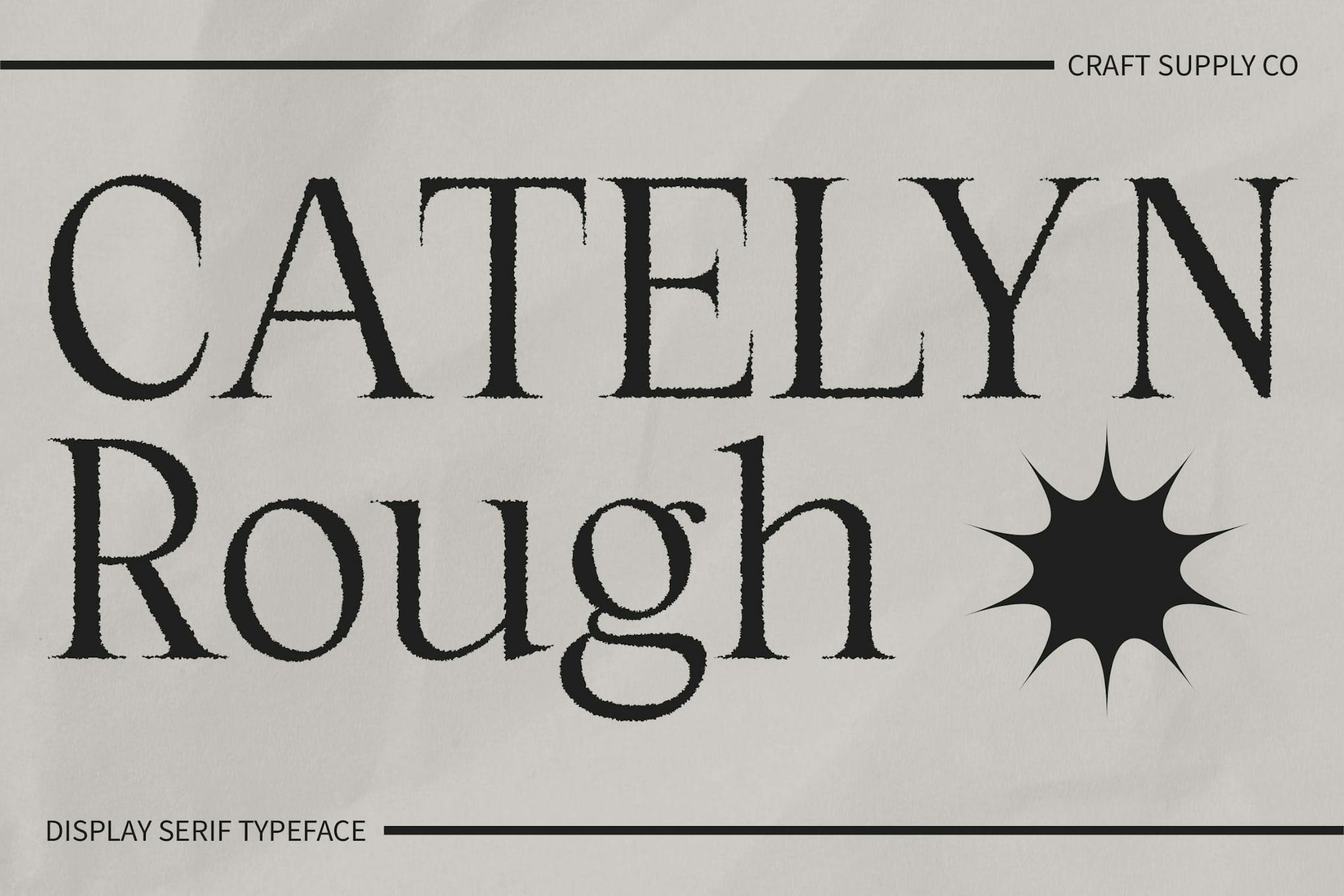
Catelyn Rough Font
The Catelyn Rough Font is perfect for vintage branding, rustic packaging design, weathered signage, craft brewery labels, artisan product branding, distressed poster artwork, grunge magazine layouts, and authentic handmade business logos.
What makes Catelyn Rough Font so exciting is its perfect balance of feminine elegance and rugged texture that creates a uniquely appealing aesthetic for modern design projects. This captivating typeface combines graceful letterforms with carefully crafted distressed elements that evoke the beauty of aged craftsmanship and time-worn elegance. The font's sophisticated rough texture tells a story of resilience and character while maintaining an underlying sense of refinement and style. Its distinctive appearance brings both strength and grace to designs, making it perfect for brands that want to convey authenticity, durability, and timeless appeal with a touch of feminine sophistication that sets it apart from typical rough fonts.
The Catelyn Rough Font family includes versatile variations that showcase different levels of distressed character and textural detail. The collection typically features multiple weights from Light to Bold, each preserving the signature rough characteristics while offering design flexibility. Many versions include italic styles with enhanced texture flow, alternative characters with varied distressing patterns, decorative ligatures, and extended character sets supporting international languages for global branding applications and cross-cultural design projects.
The font's remarkable adaptability works beautifully across both digital and print platforms, from contemporary websites to traditional packaging design. Its carefully balanced distressed texture maintains excellent readability at all sizes while preserving the distinctive rough elegance that makes it so visually compelling and memorable.
Professional designers and creative agencies worldwide trust this distinctive rough font for projects requiring sophisticated texture and authentic character. Whether developing brand identities for artisanal businesses, creating marketing materials for lifestyle brands, or designing promotional content for creative industries, this font delivers the perfect combination of rugged authenticity and refined elegance that elevates any design project.